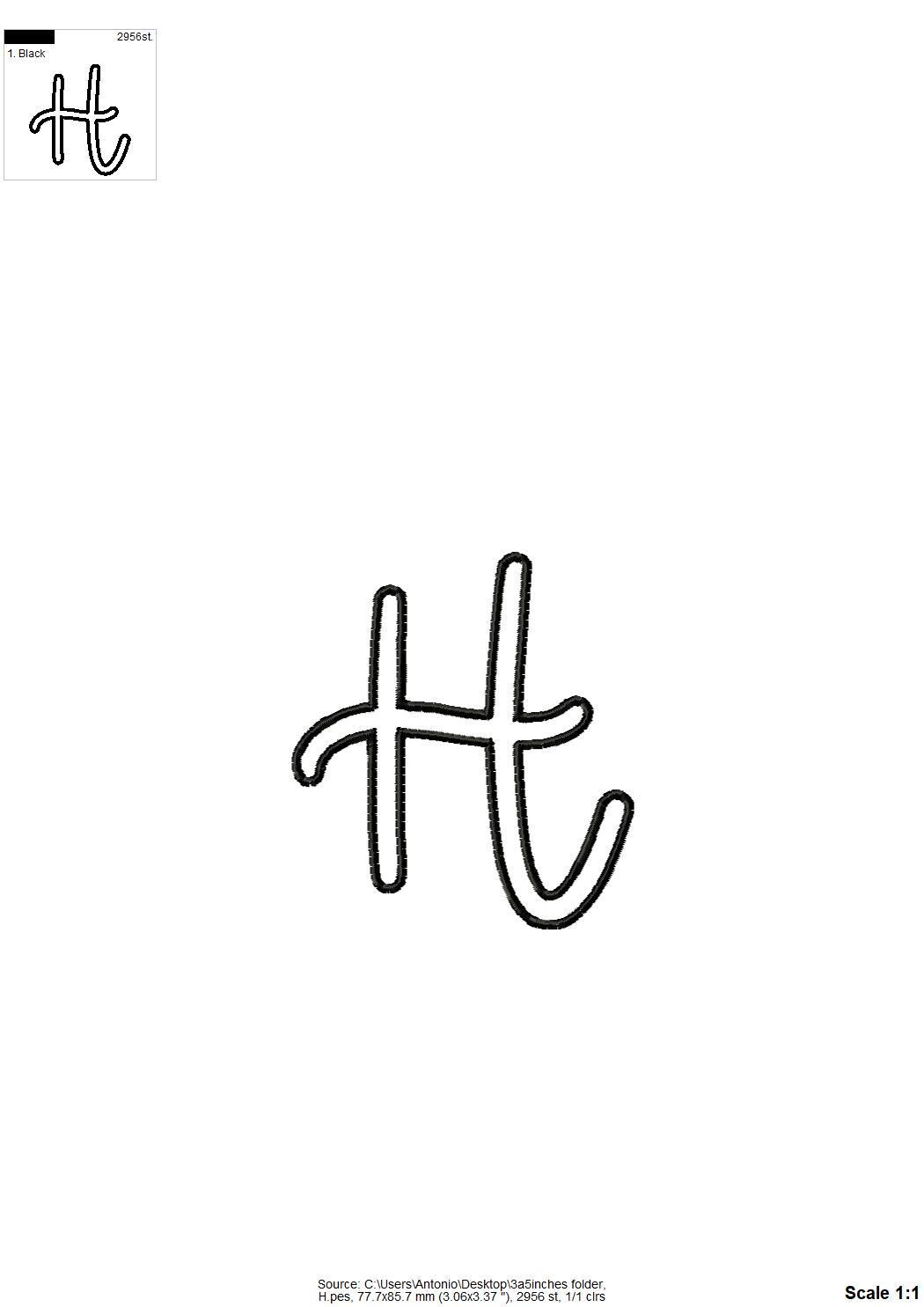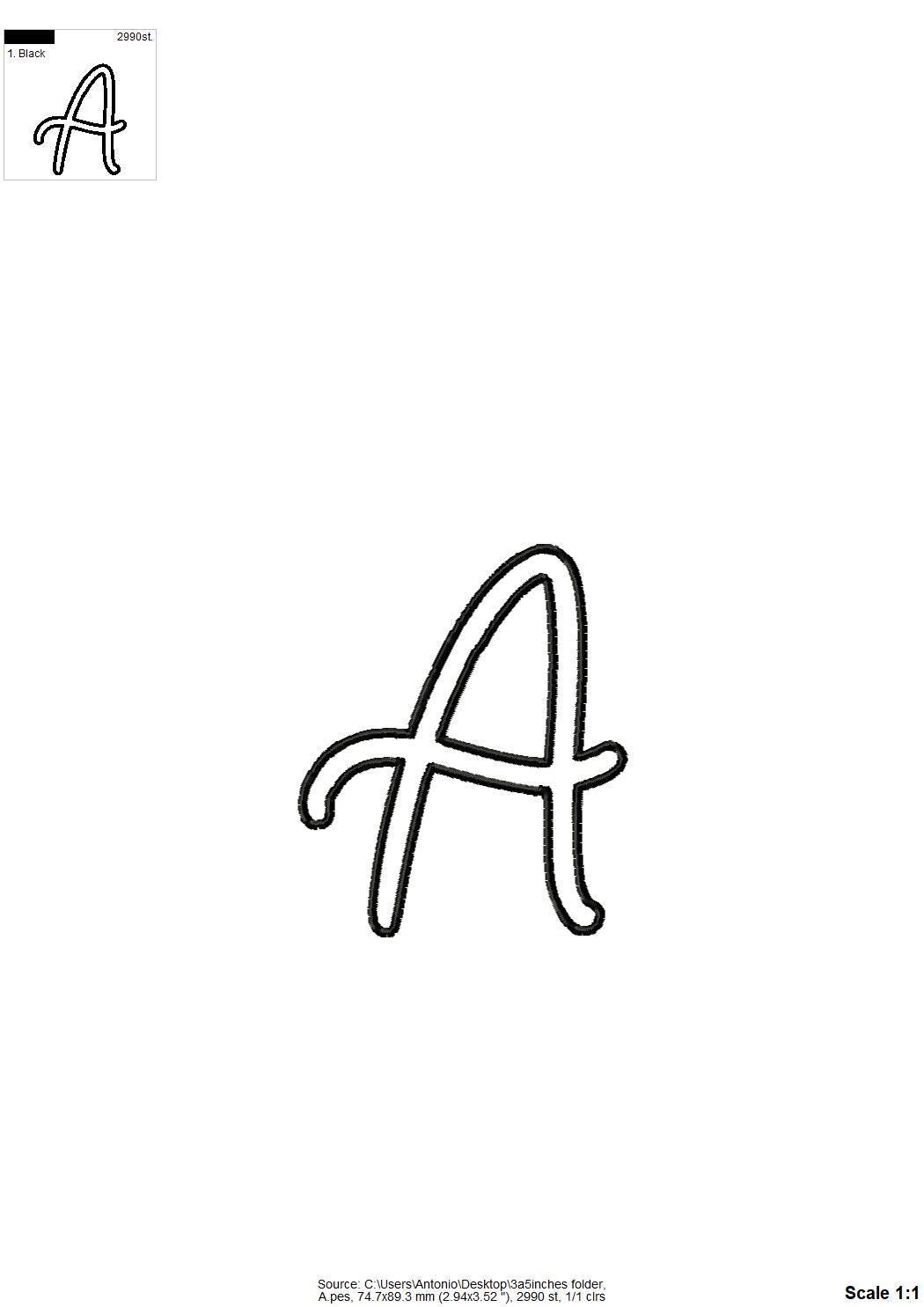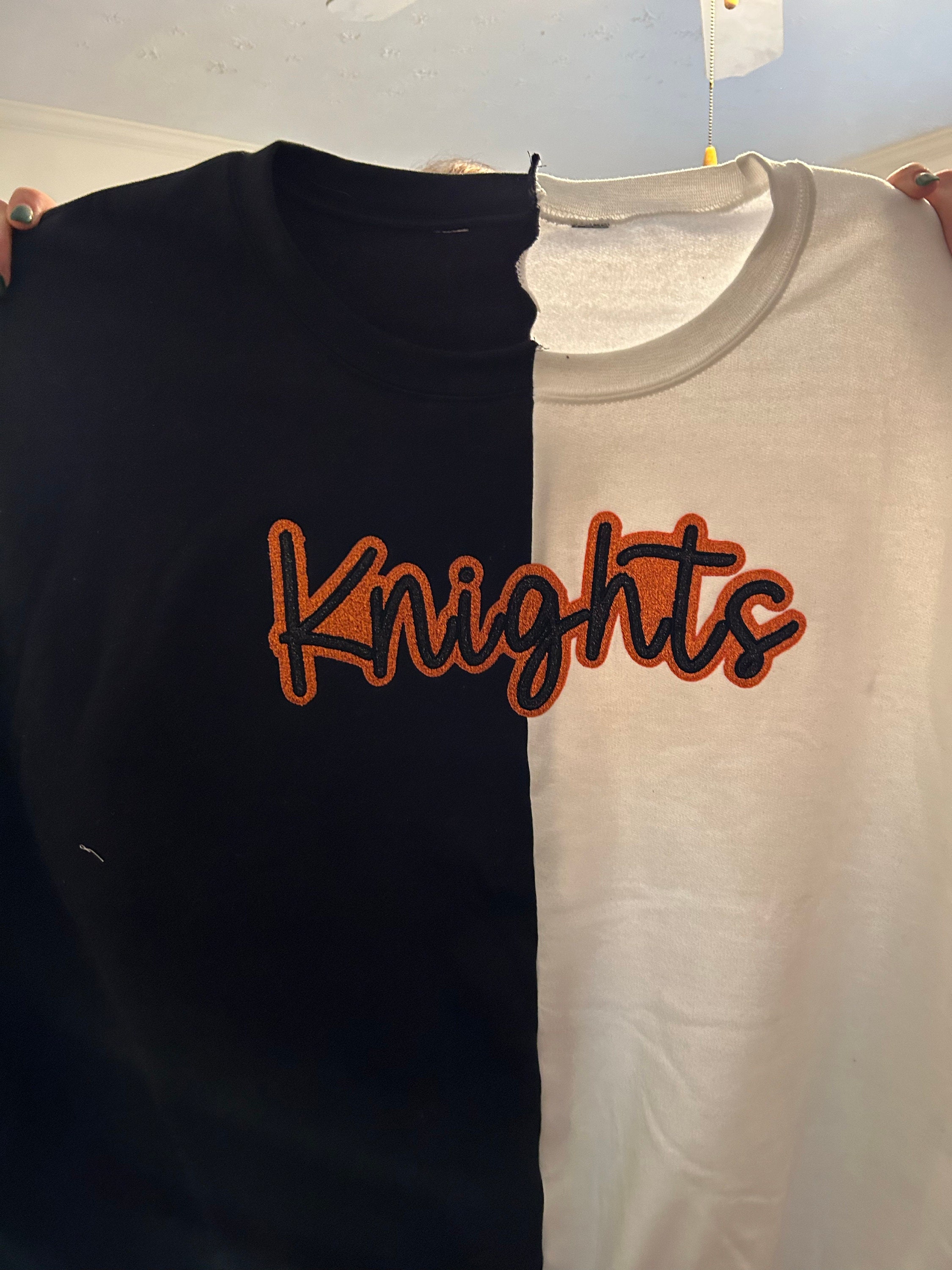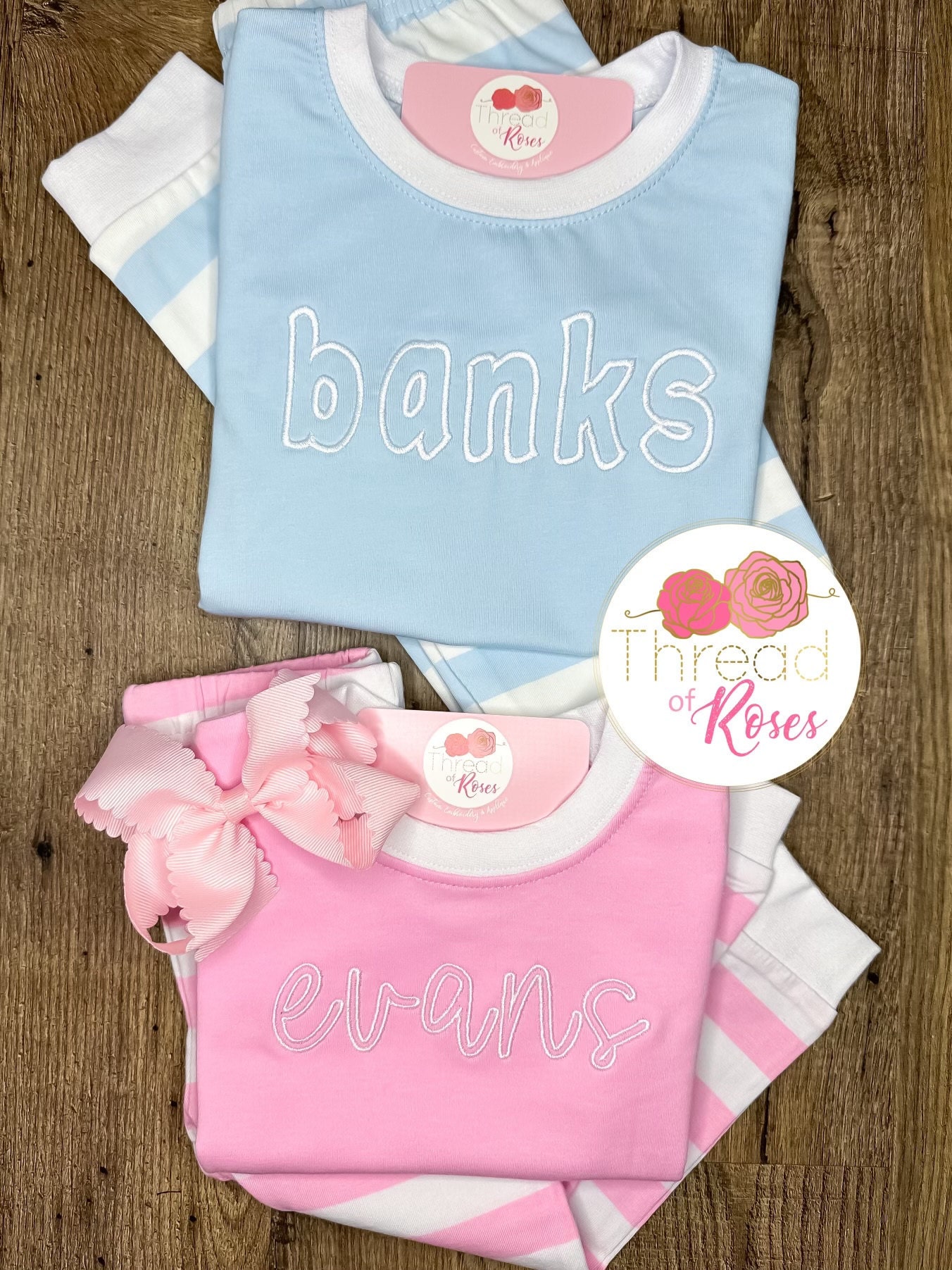
Sweatshirt satin stitch outline Font script handwritten alphabet machine embroidery designs sizes 1 thru 3.5 inches kids monogram name, BX
Entire alphabet uppercase and lowercase letters, and numbers.